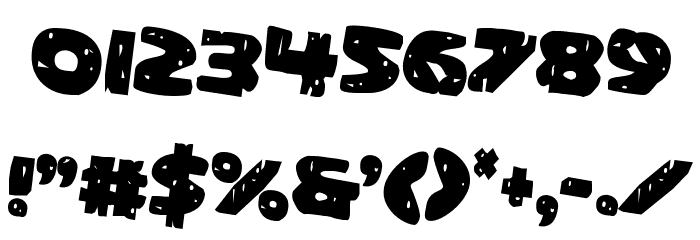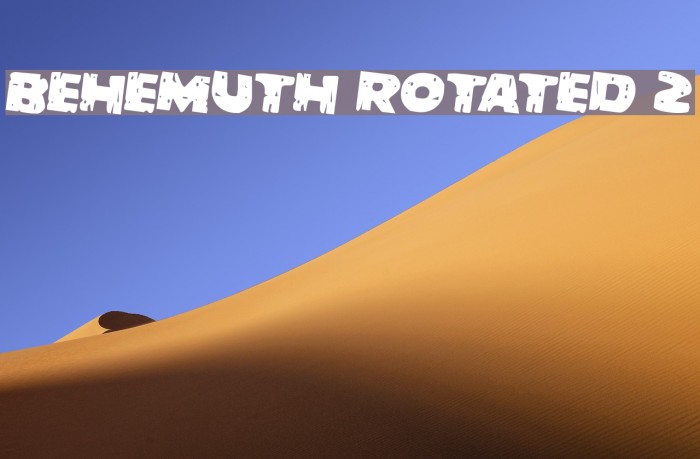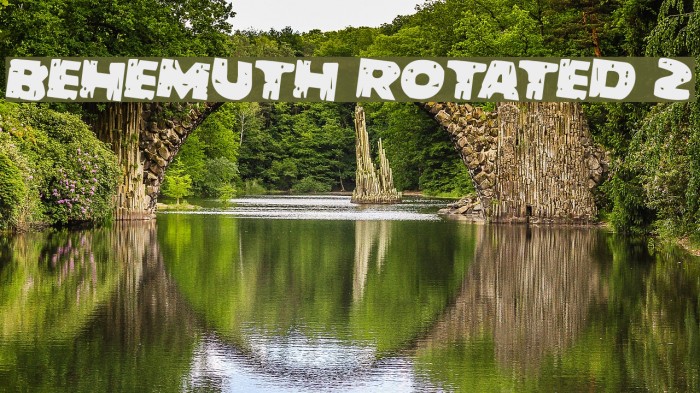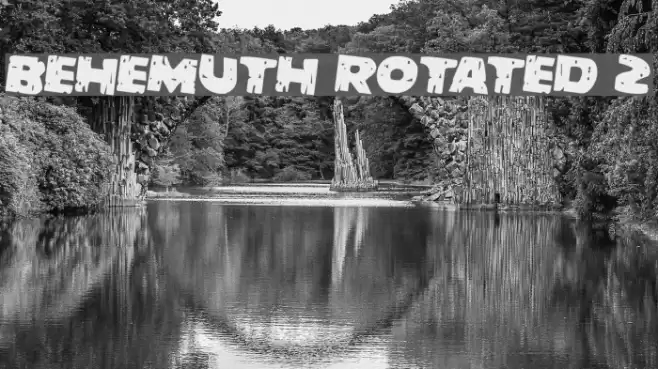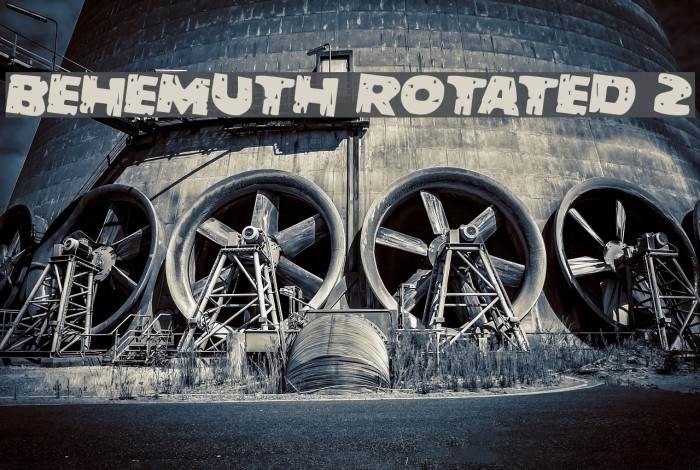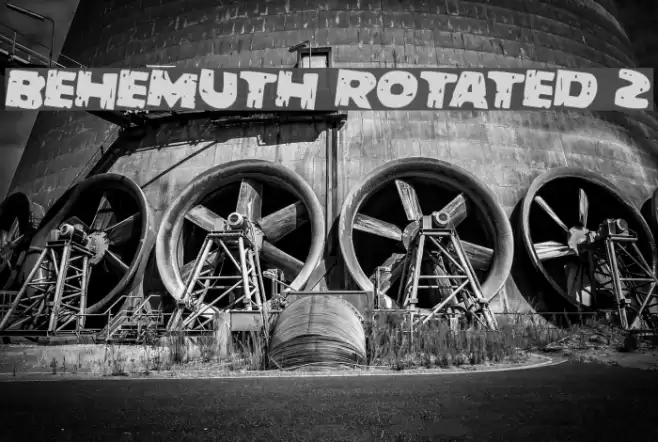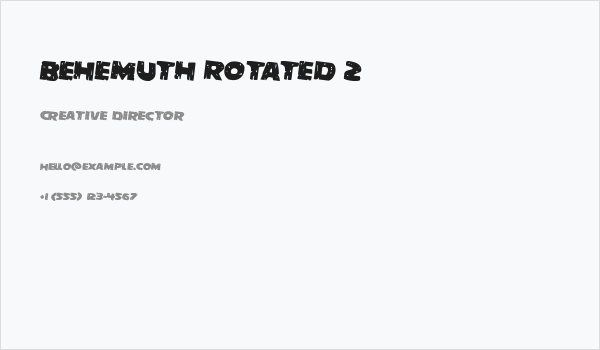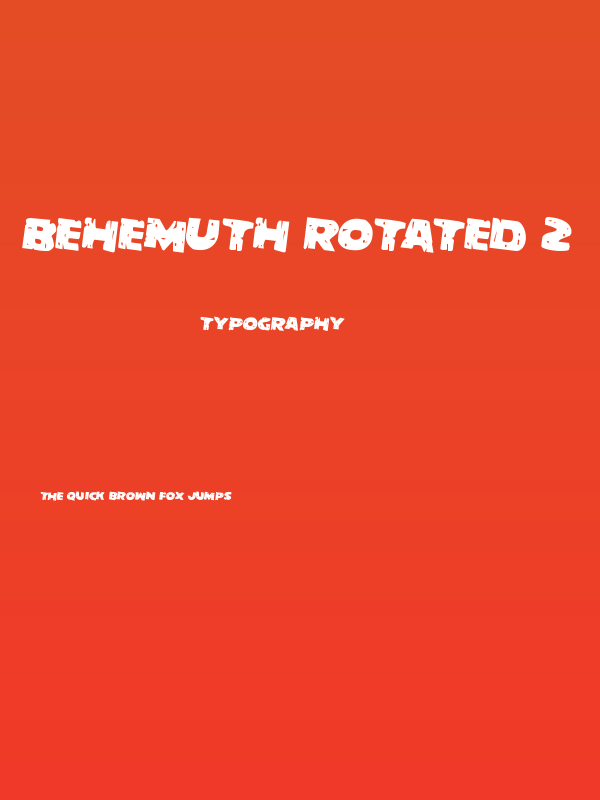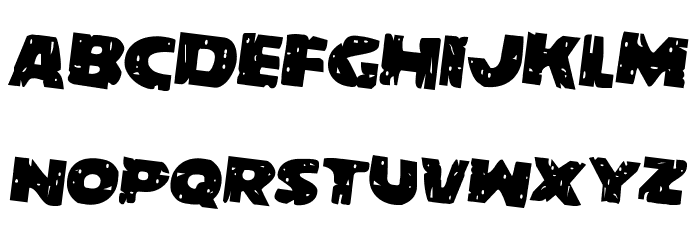
Behemuth Rotated 2 Font
Behemuth Rotated 2 Description
This font features a bold and playful design with a distinctively chunky appearance. Each character is adorned with irregular cutouts, giving it a unique, almost distressed look. The letters are slightly tilted, adding to the dynamic and energetic feel. The font maintains a consistent thickness throughout, contributing to its bold presence. The playful nature of the design makes it ideal for projects that require a fun and engaging aesthetic. The characters are well-spaced, ensuring readability despite the decorative elements.
| Overall Style | Playful, Energetic |
| Proposed Projects | Ideal for children's book covers, playful branding, posters, and event flyers. |